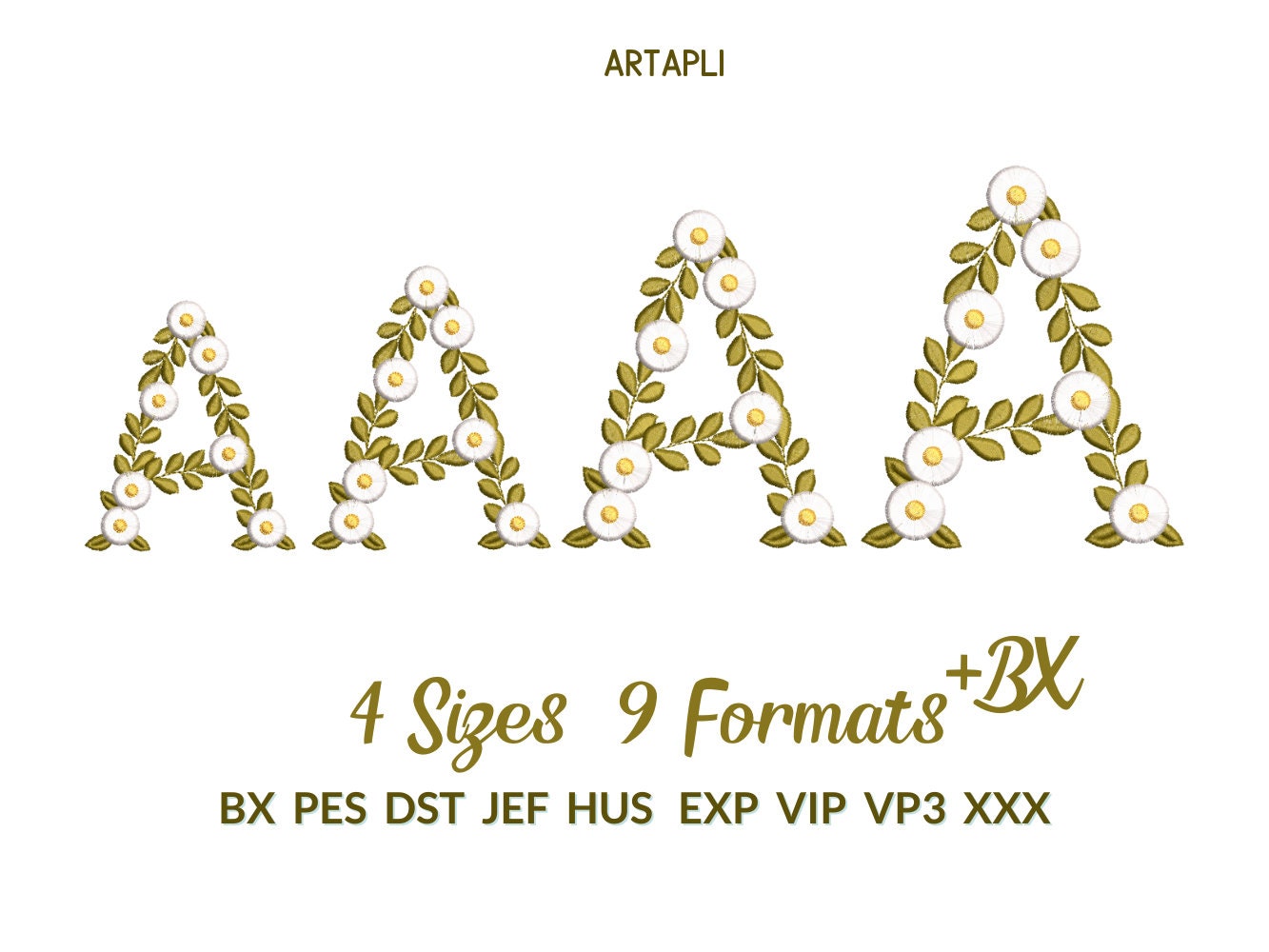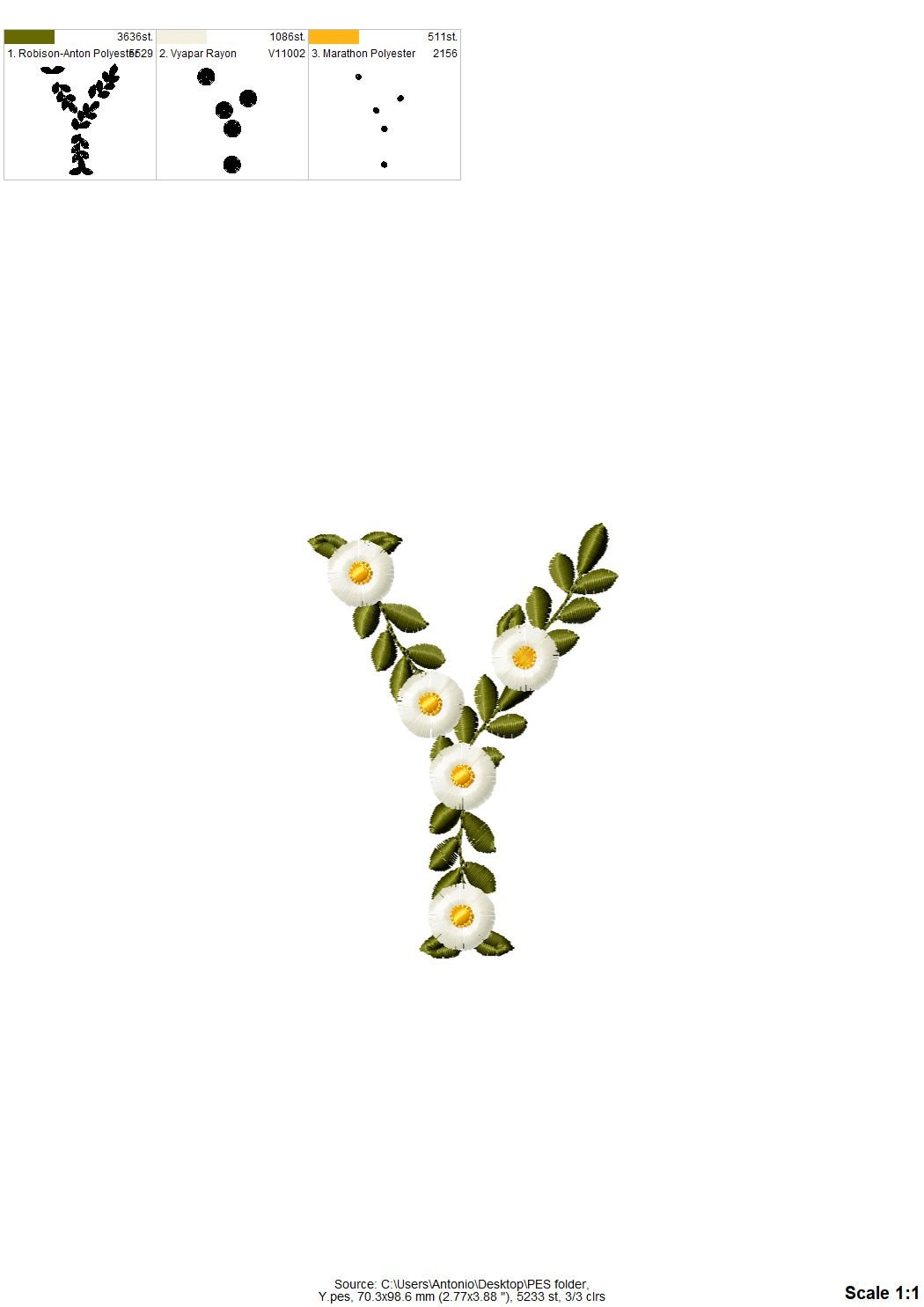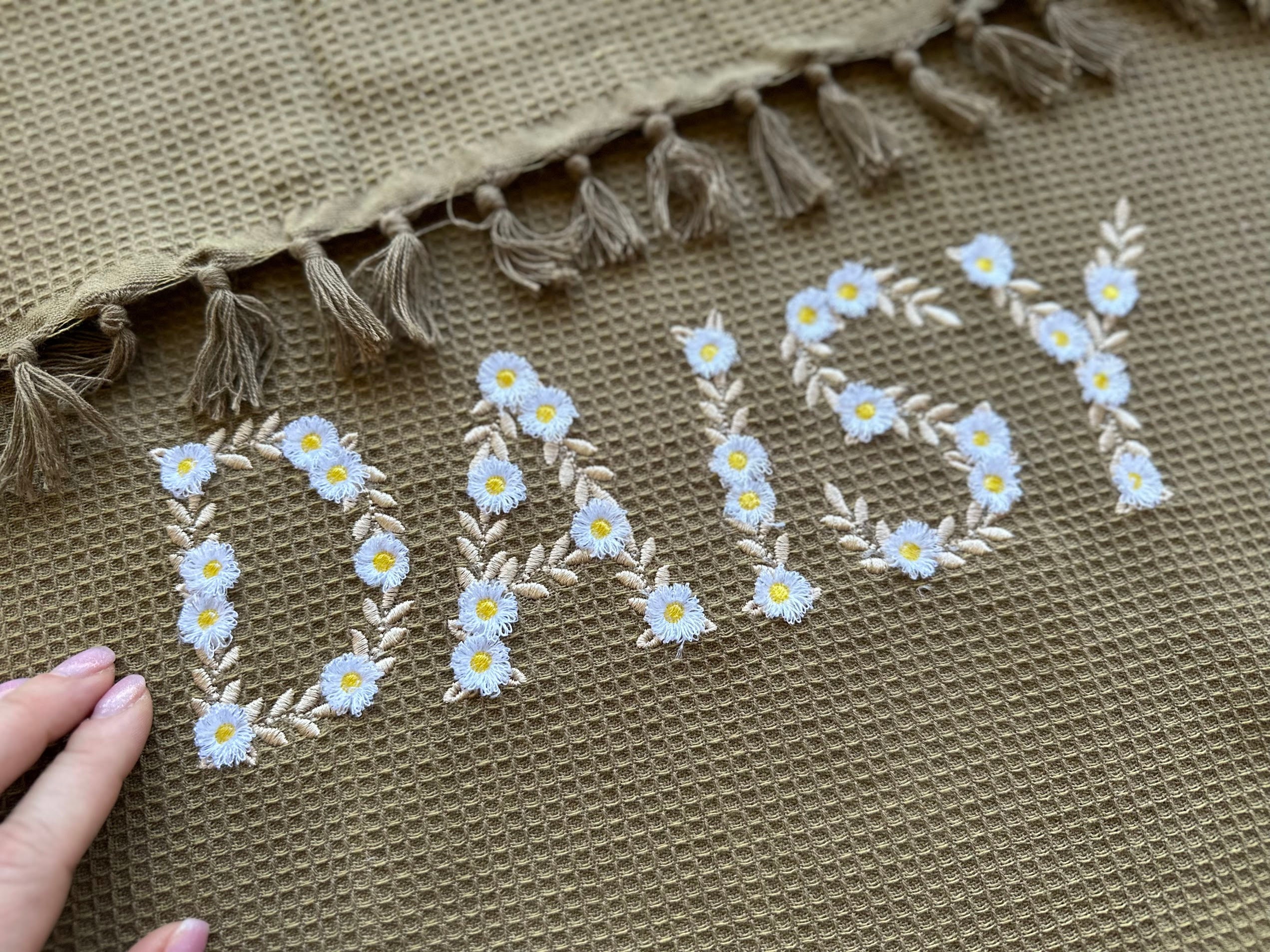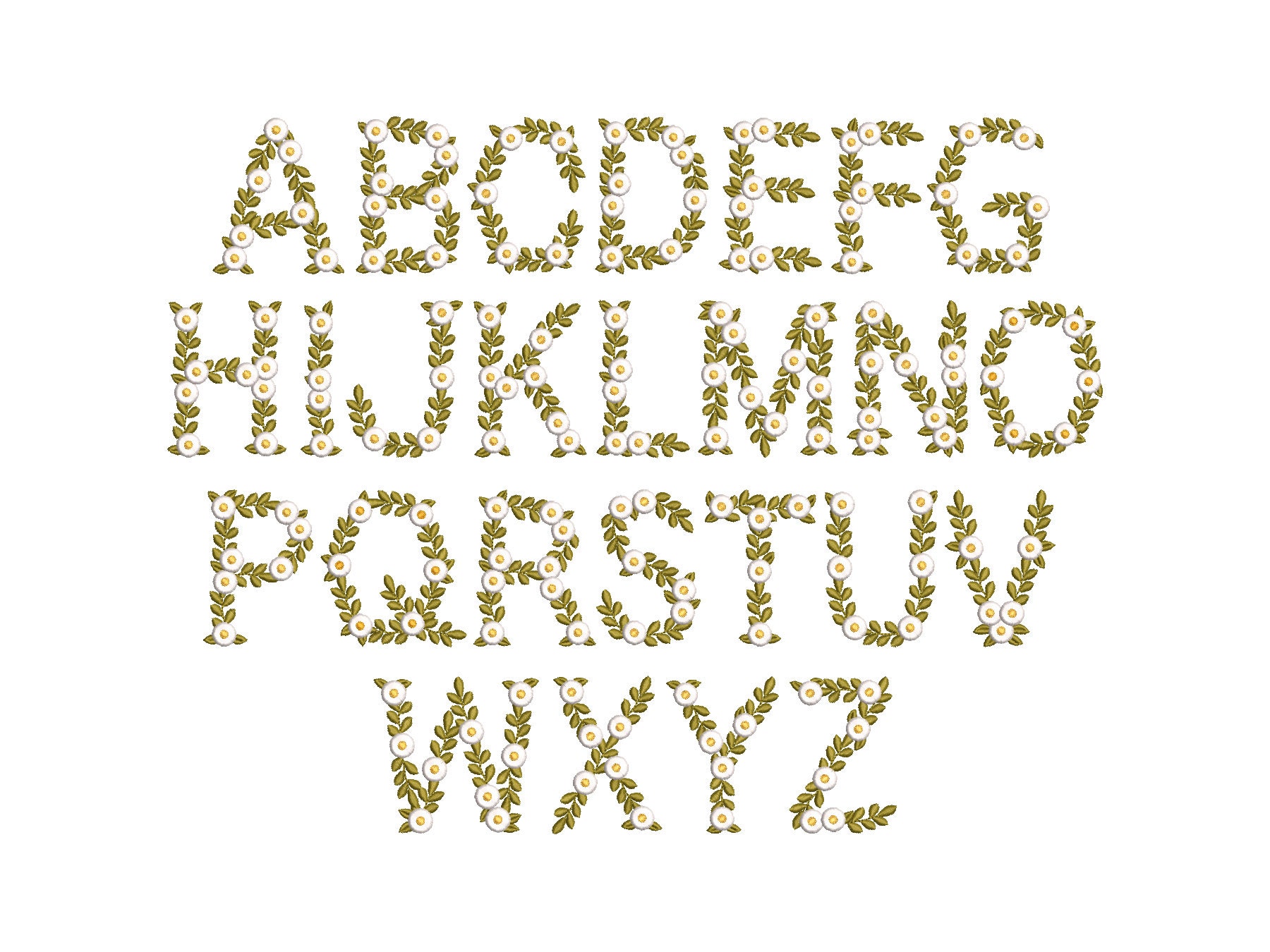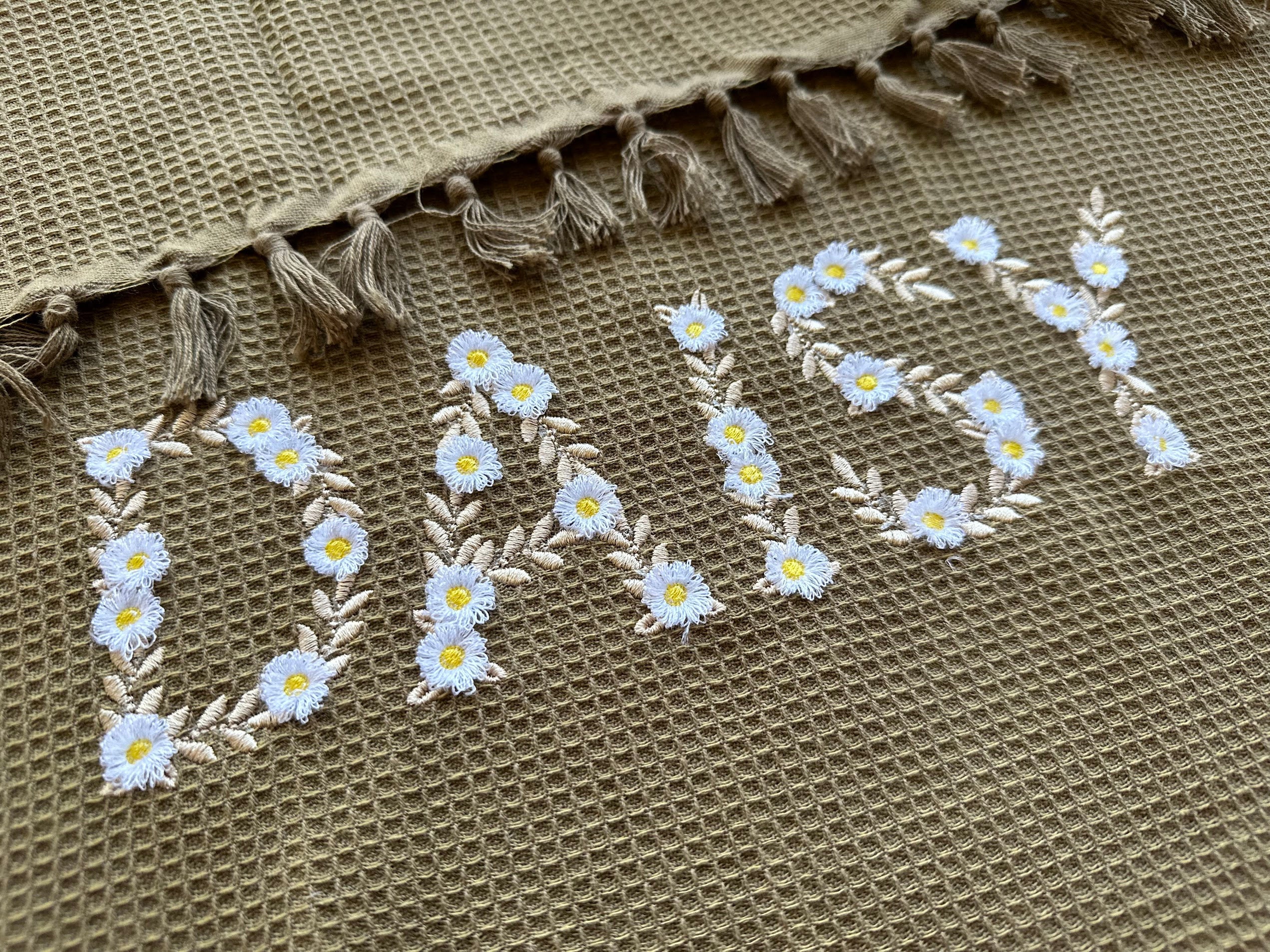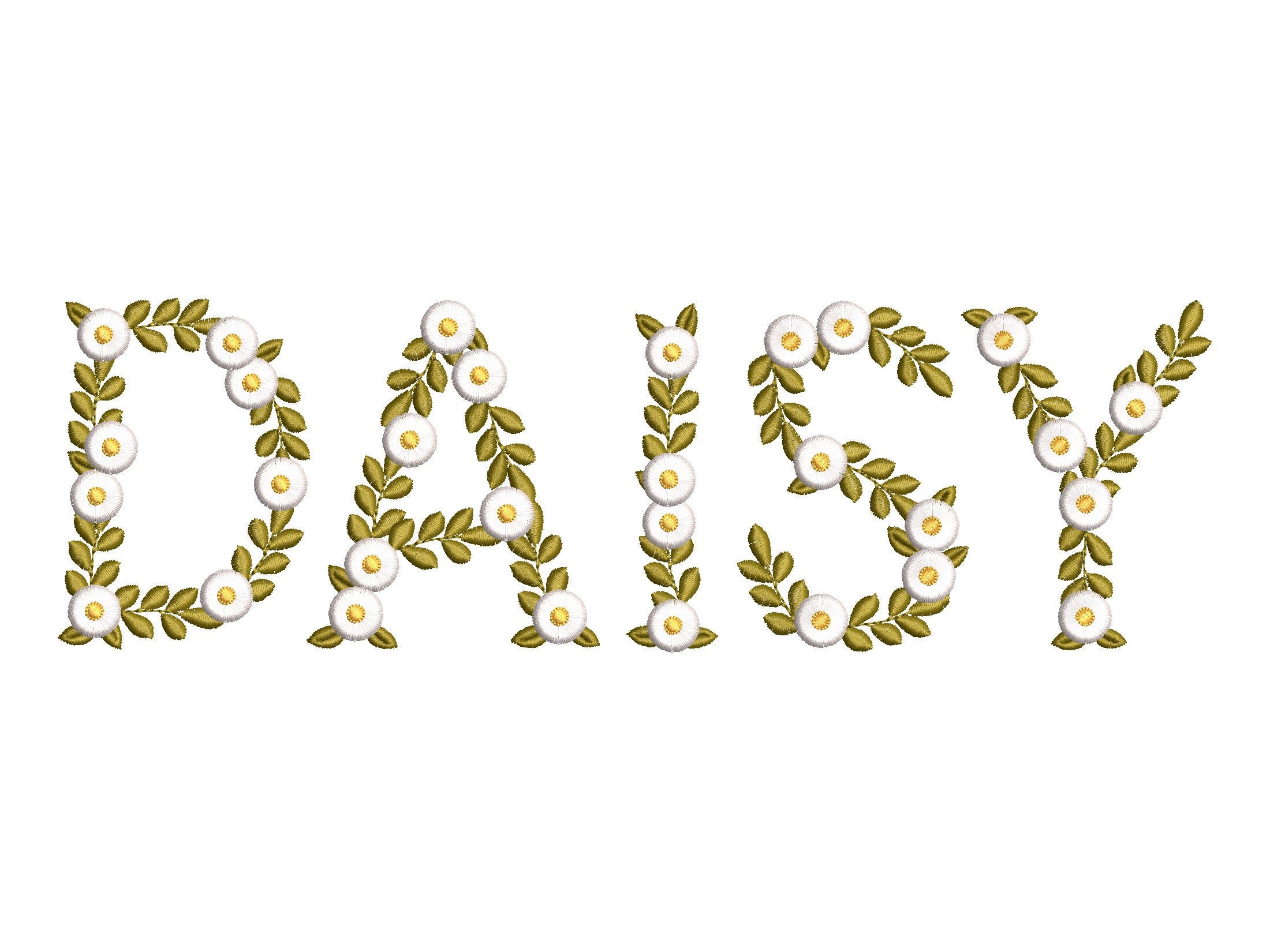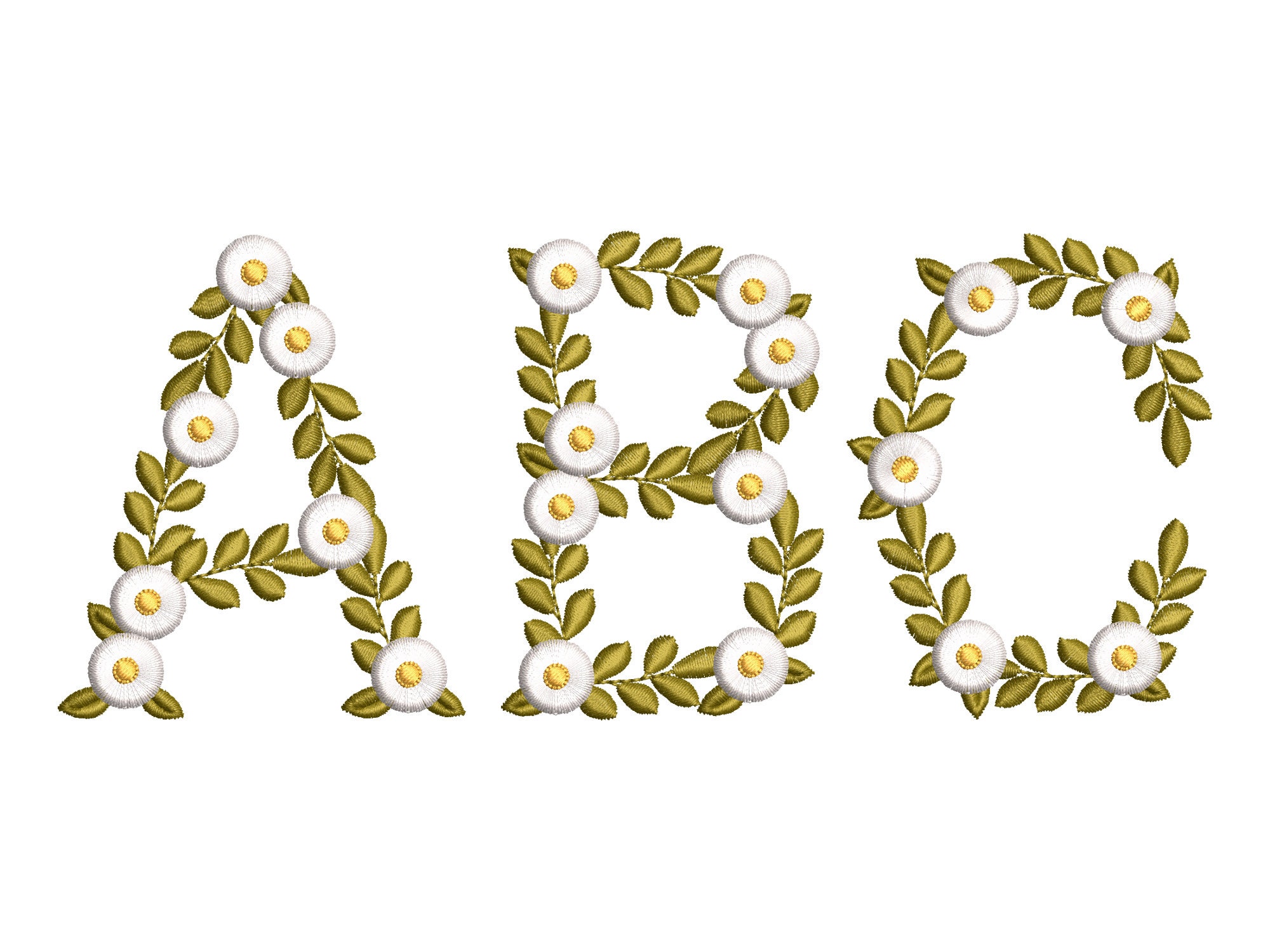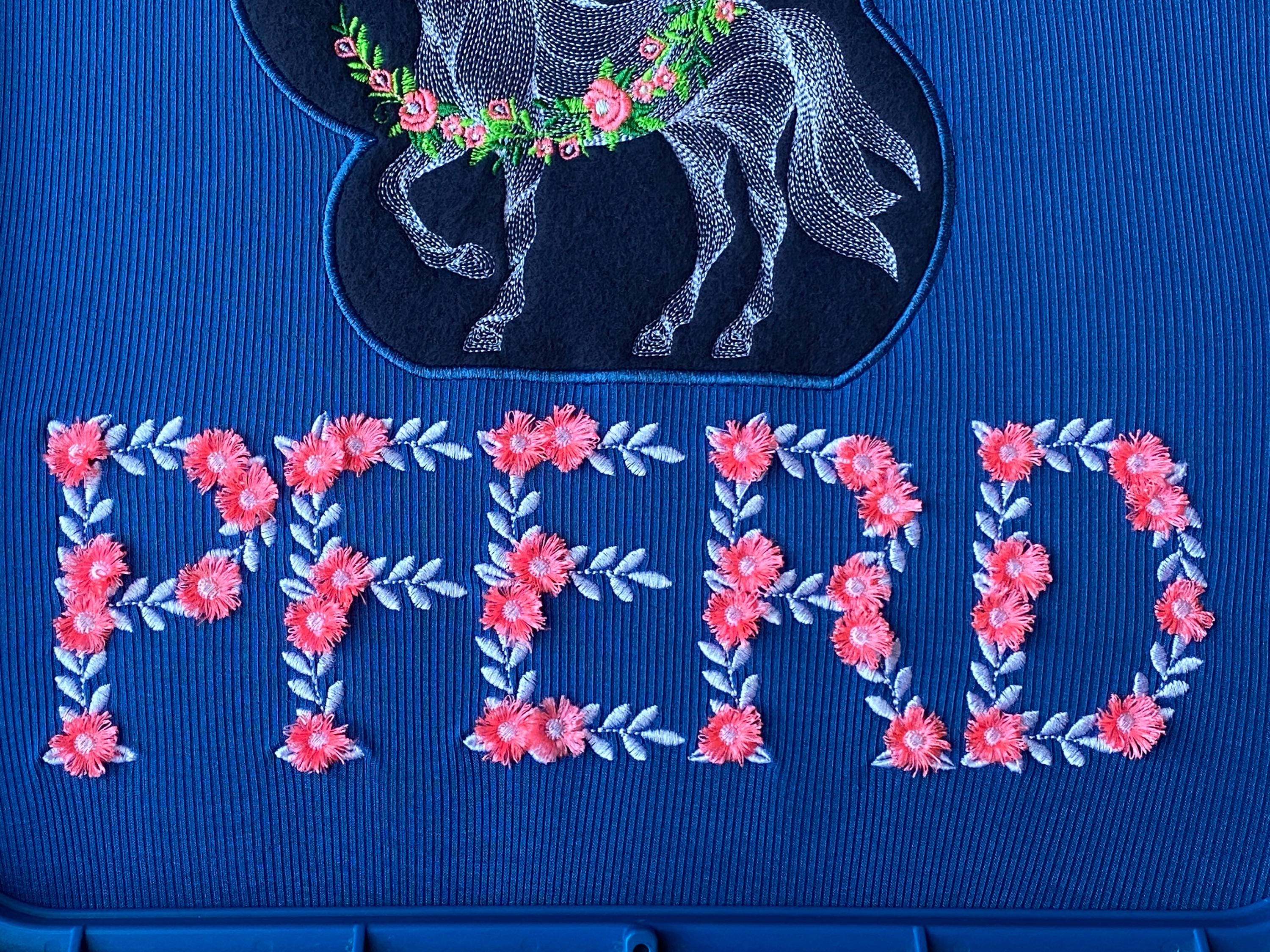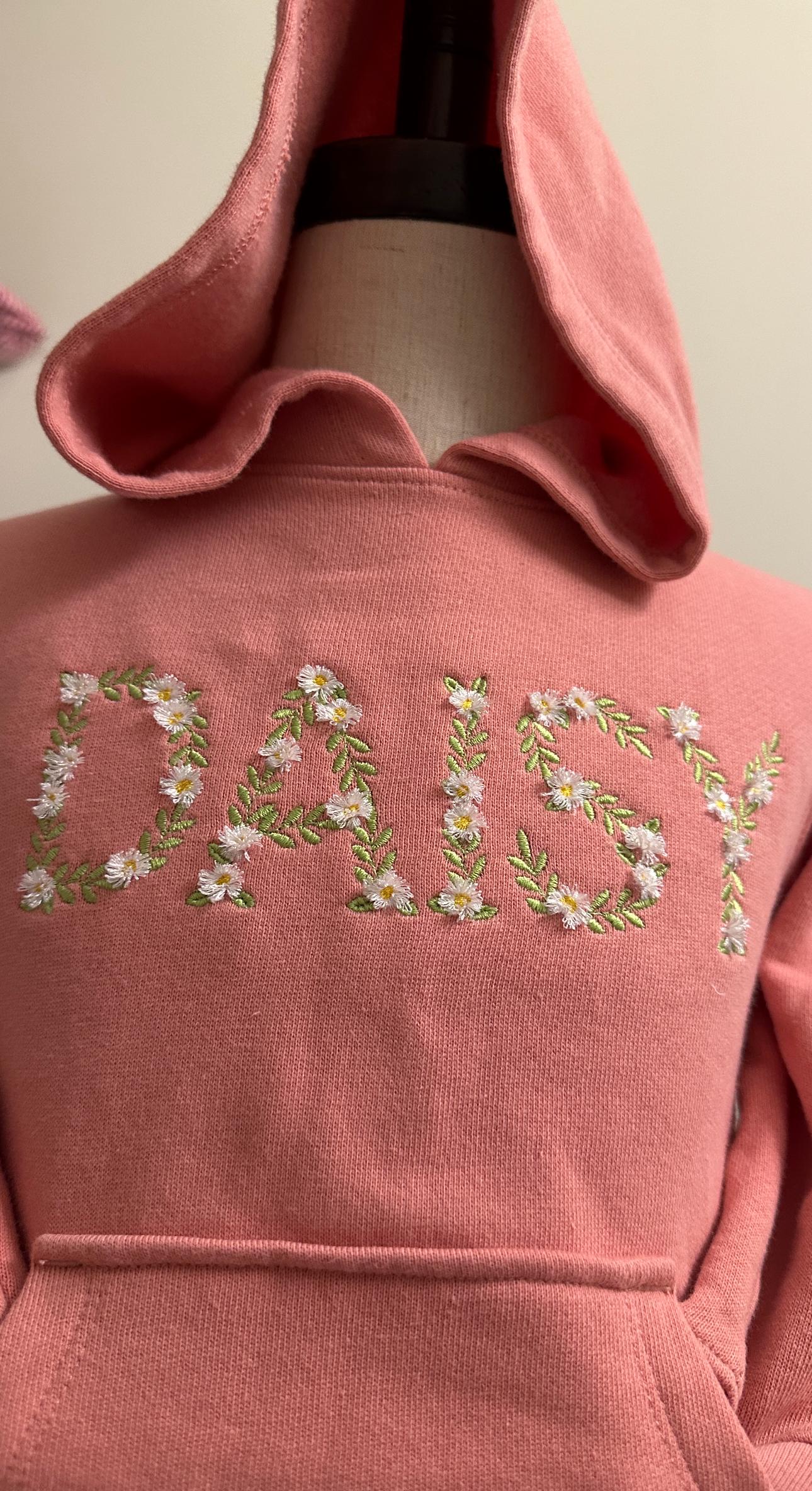
Awesome fringed Daisy Flower Floral Font flowered alphabet uppercase initial monogram machine embroidery designs sizes 3.3 up to 5in BX included
Uppercase letters A-Z
You can fluff up the daisy flowers. 100 % safe to wash.
The design has a special seam holding the fringe in place.
It is easy. Embroider the design as usual. Large satin stitches will be loose. Once you complete stitching the design, turn over your hoop to see a reverse side, and cut the bobbin thread, along the large satin stitches. Turn the hoop back over and fluff up the "fringe" around.